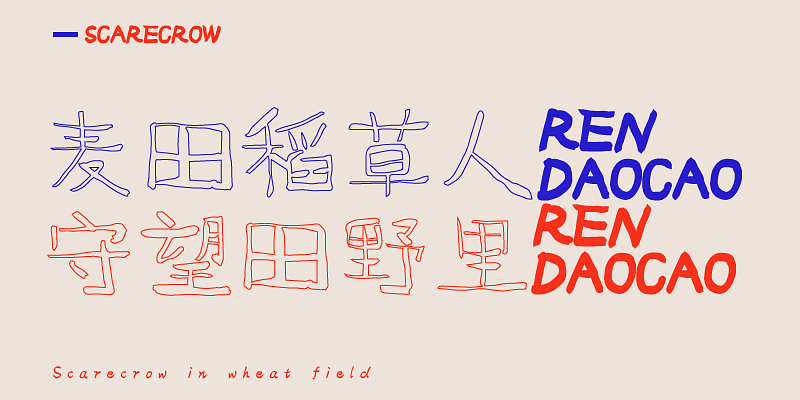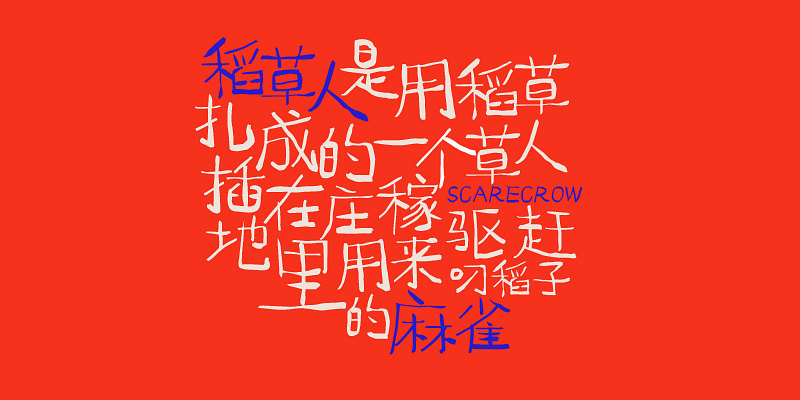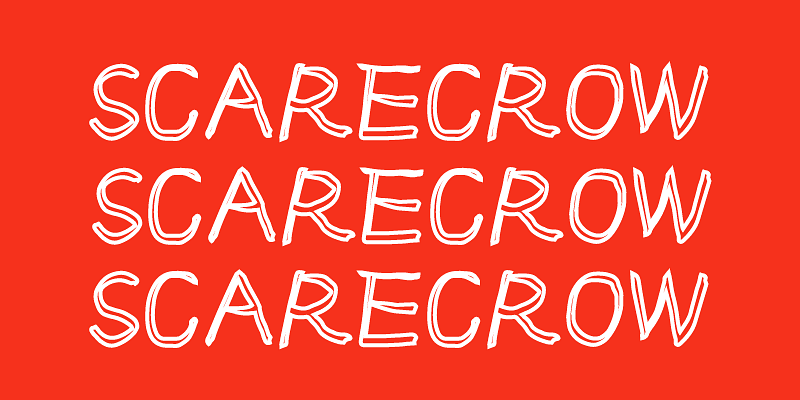
HelloFont ID DaoCaoRen shows a picture of children playing with straw and building a straw man in a field in the countryside after a good harvest of golden rice. Each stroke is like a field of broken straw; natural, simple, fragrant of rice, and full of vitality. Seemingly random combination of the font reveals the land’s original authenticity and charm. We hope you can feel the warmth of the straw and the wind in the field when using it.